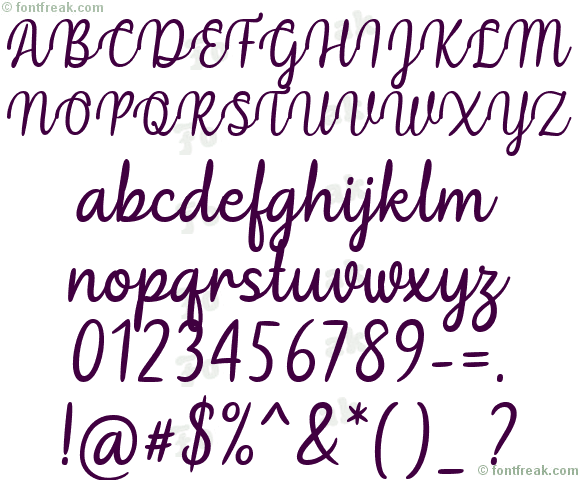
Hidea
Hidea, designed by Situjuh Nazara, is a stunning handwritten font that captures the essence of artistic expression. This font falls under the script category, characterized by its fluid and elegant strokes that evoke a sense of personal touch. The stroke weight is consistent yet varies slightly in specific areas to enhance its organic feel, while the spacing between letters is balanced, ensuring legibility without sacrificing style. Decorative elements are subtly integrated, adding a whimsical charm that makes Hidea truly unique.
The versatility of the Hidea font makes it an excellent choice for various design projects. It shines particularly in wedding invitations, where its romantic flair can beautifully convey heartfelt sentiments. Additionally, it works well for branding small businesses, offering a warm and approachable aesthetic that appeals to customers. Graphic designers will find it suitable for crafting captivating social media graphics, as the font draws attention and enhances visual storytelling. Restaurant menus can also benefit from Hidea's inviting style, making the dining experience feel more personal and curated.
Targeted at graphic designers, small business owners, and content creators, Hidea offers a fresh and contemporary option for those looking to enhance their design projects. Its freeware license makes it accessible for anyone aiming to elevate their typographic choices without financial constraints.
What sets Hidea apart is its seamless blend of elegance and approachability, making it perfect for both formal and casual applications. The Hidea font free download allows users to explore its potential in various creative ventures, ensuring that every project can benefit from its distinctive charm. This font is not just a typeface; it’s an artistic tool that breathes life into any design.